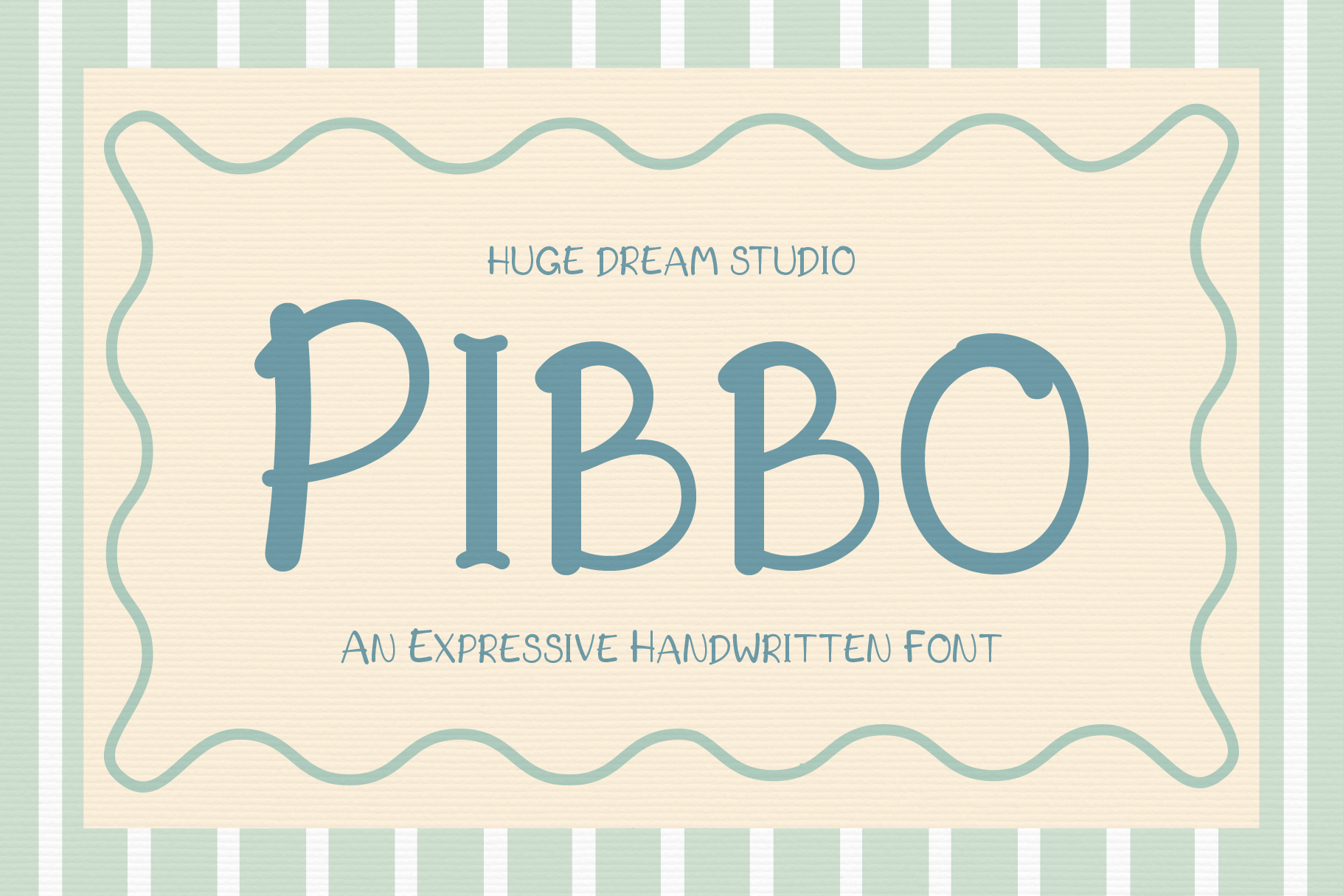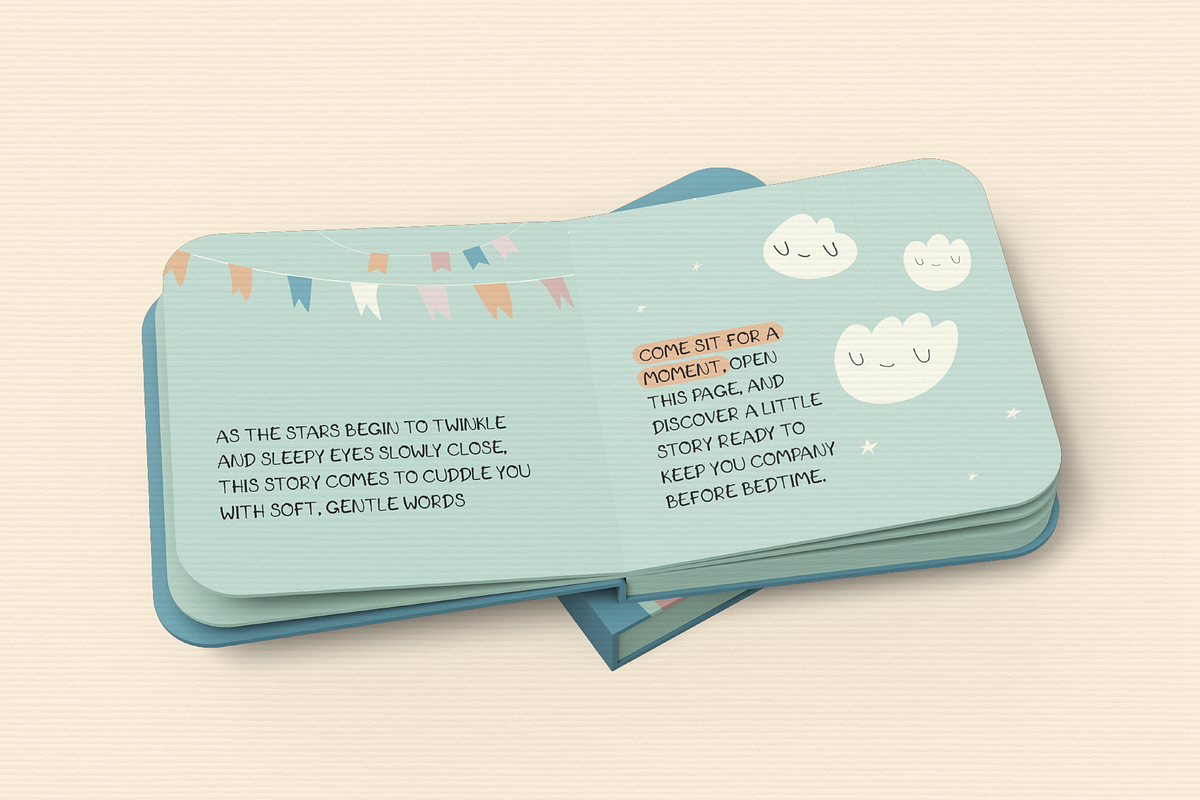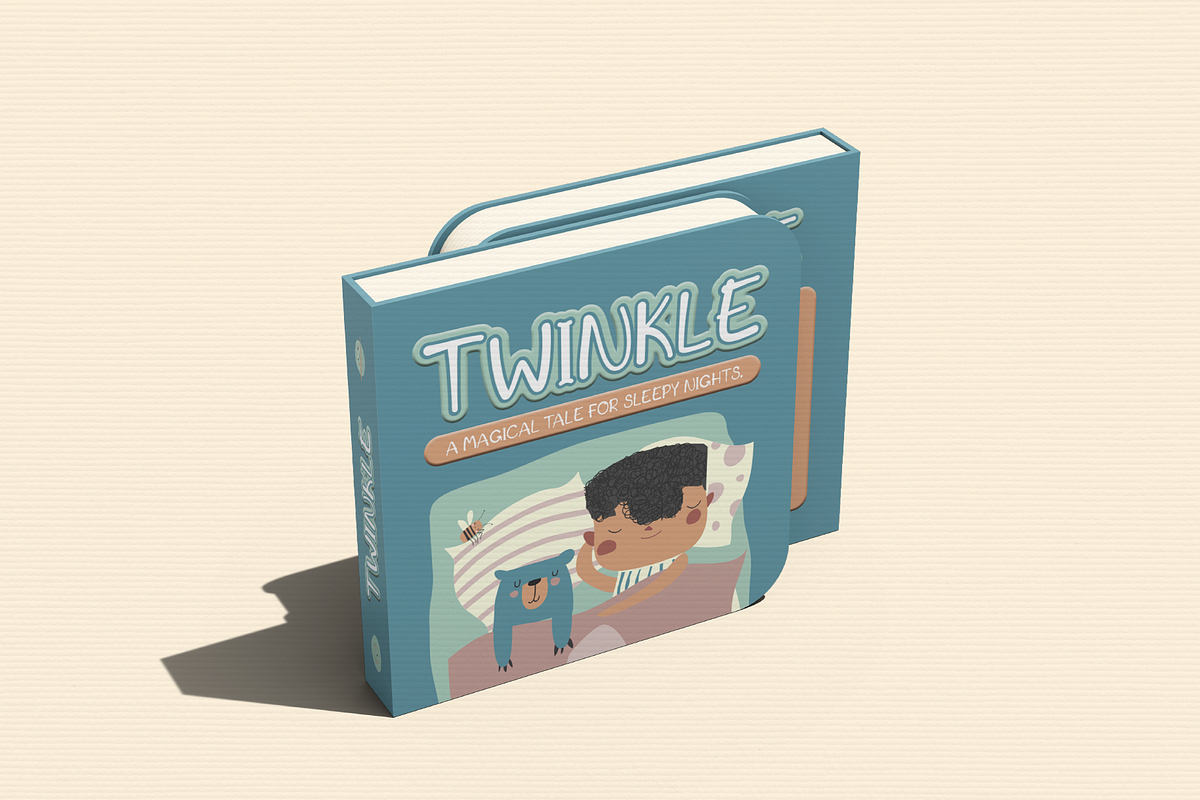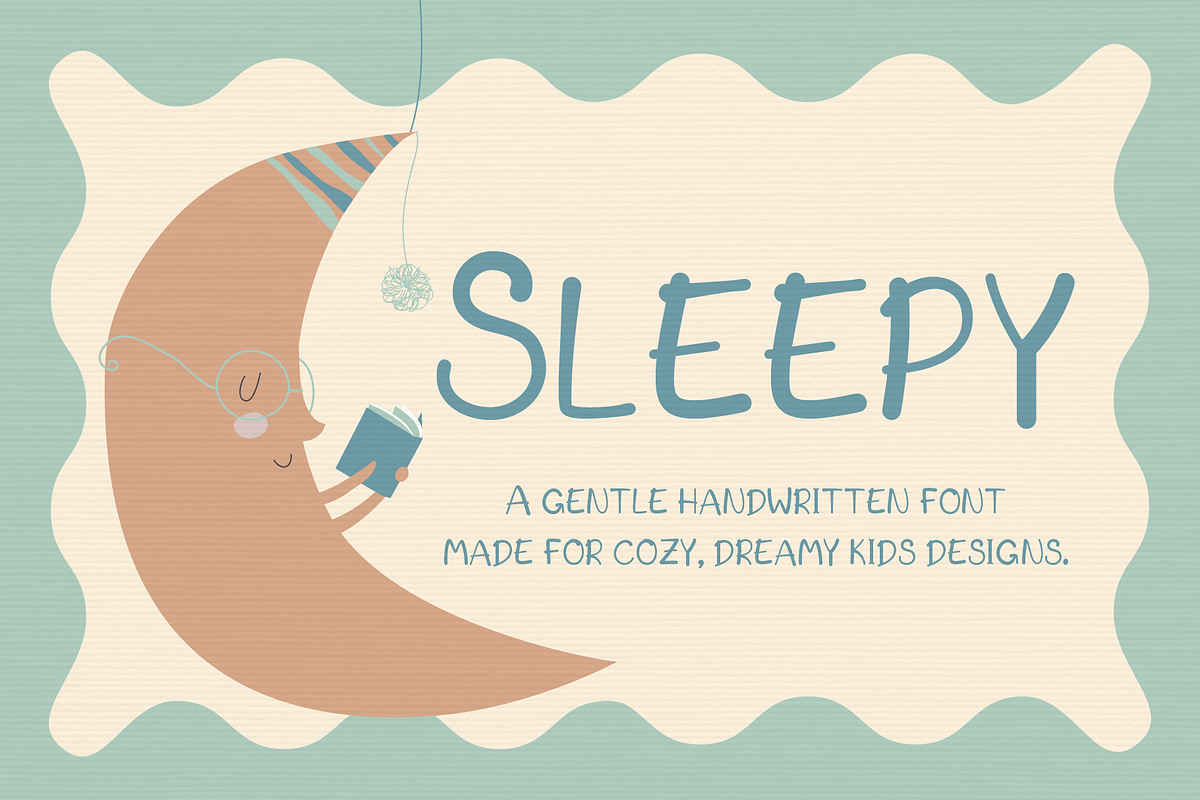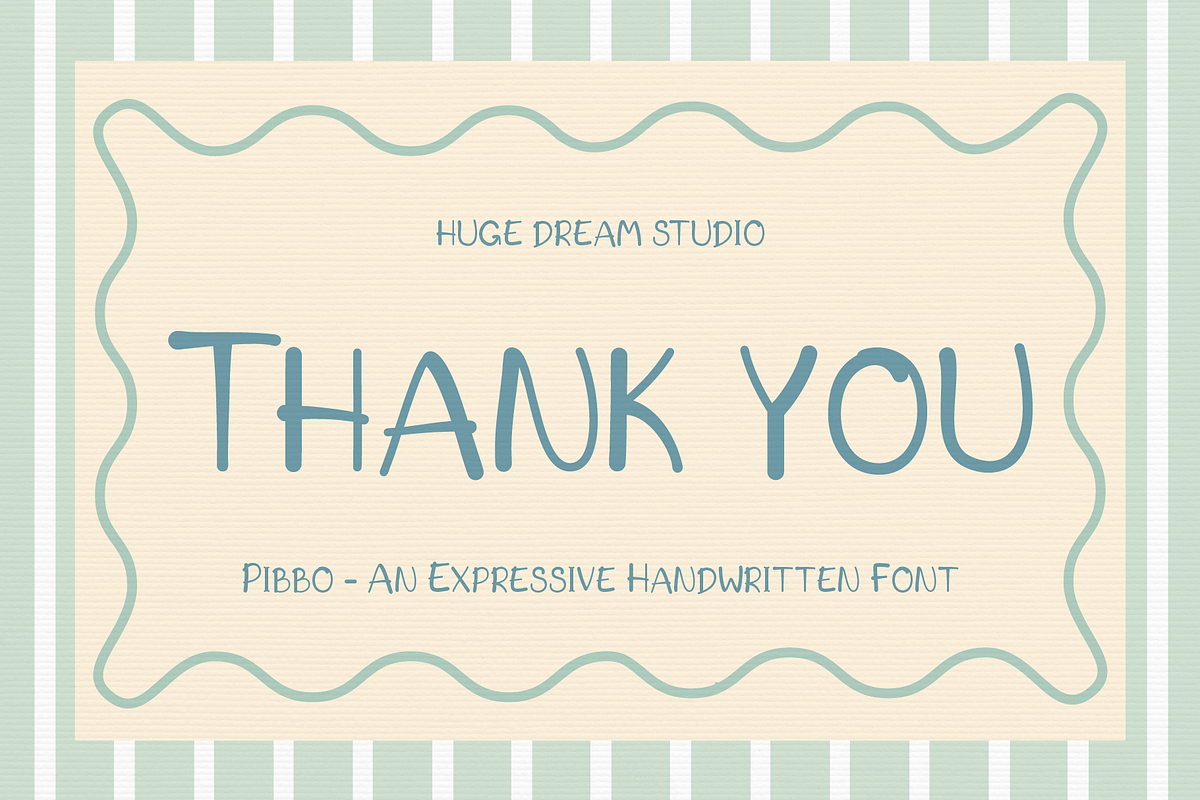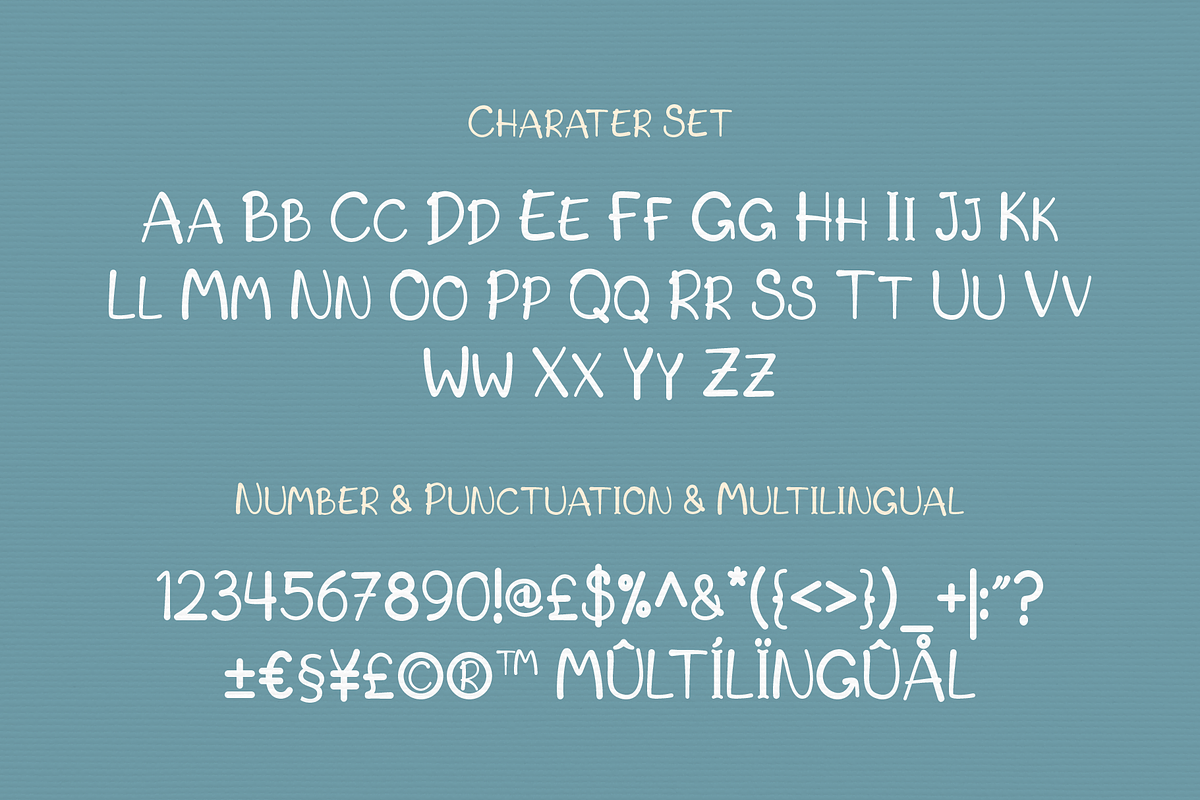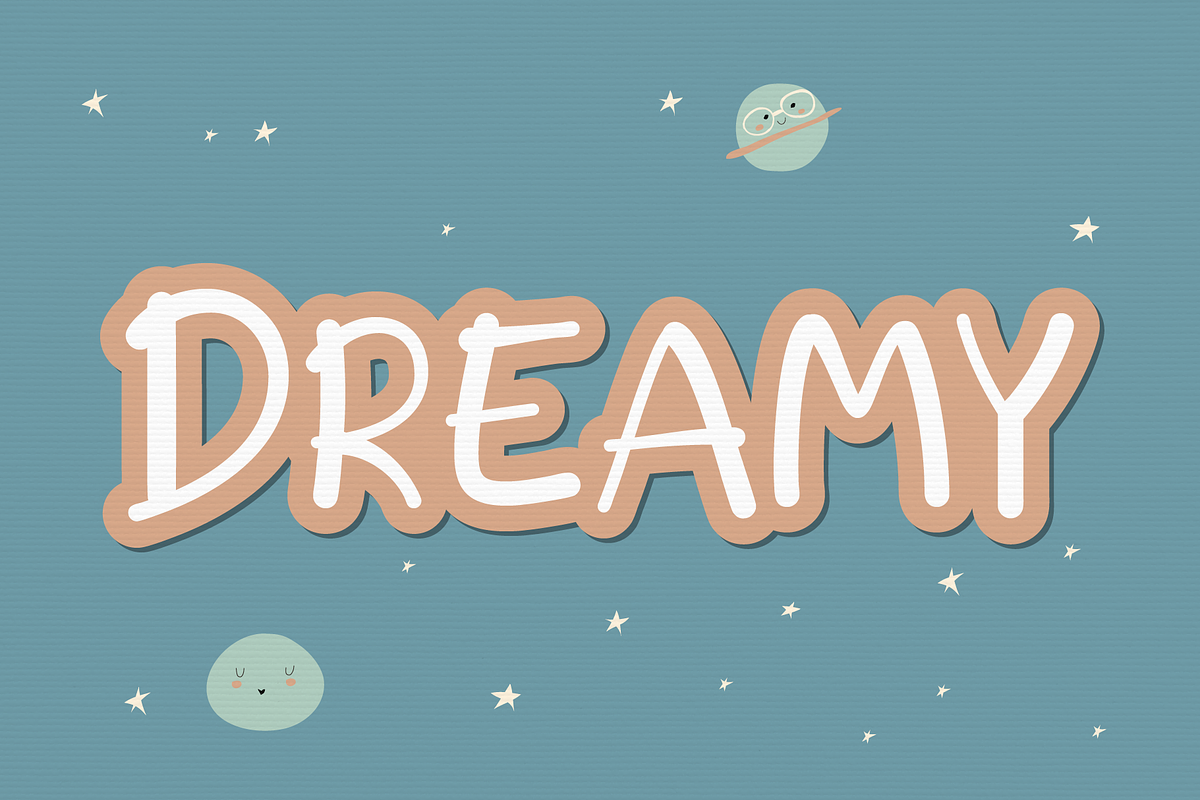
Pibbo – Handwritten Font
Pibbo – Handwritten Font is a charming, natural script font that captures the warmth of real handwriting. With its smooth strokes and playful flow, Pibbo feels personal, friendly, and expressive—perfect for adding a human touch to your designs.
Designed to be versatile and easy to read, Pibbo works beautifully for logos, branding, social media posts, quotes, invitations, greeting cards, packaging, and lifestyle designs. Whether you’re aiming for a casual, cozy, or creative look, Pibbo brings authenticity and character to every word.